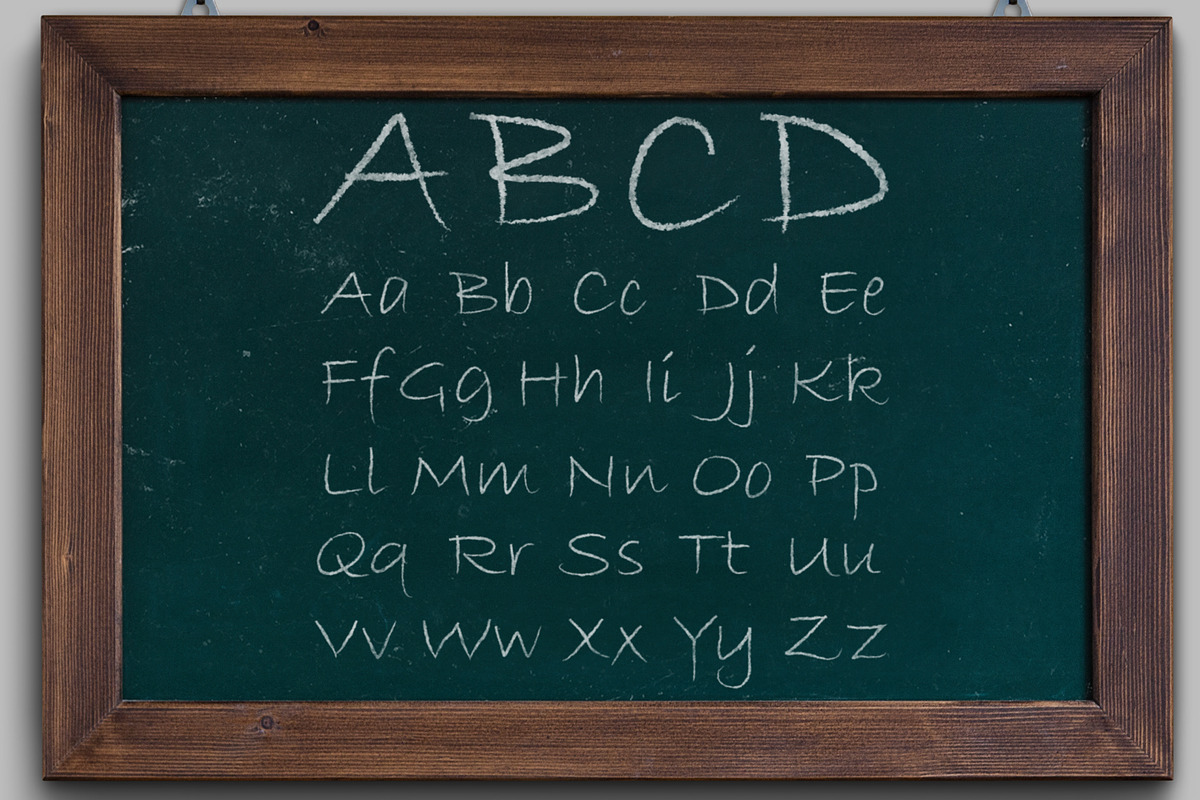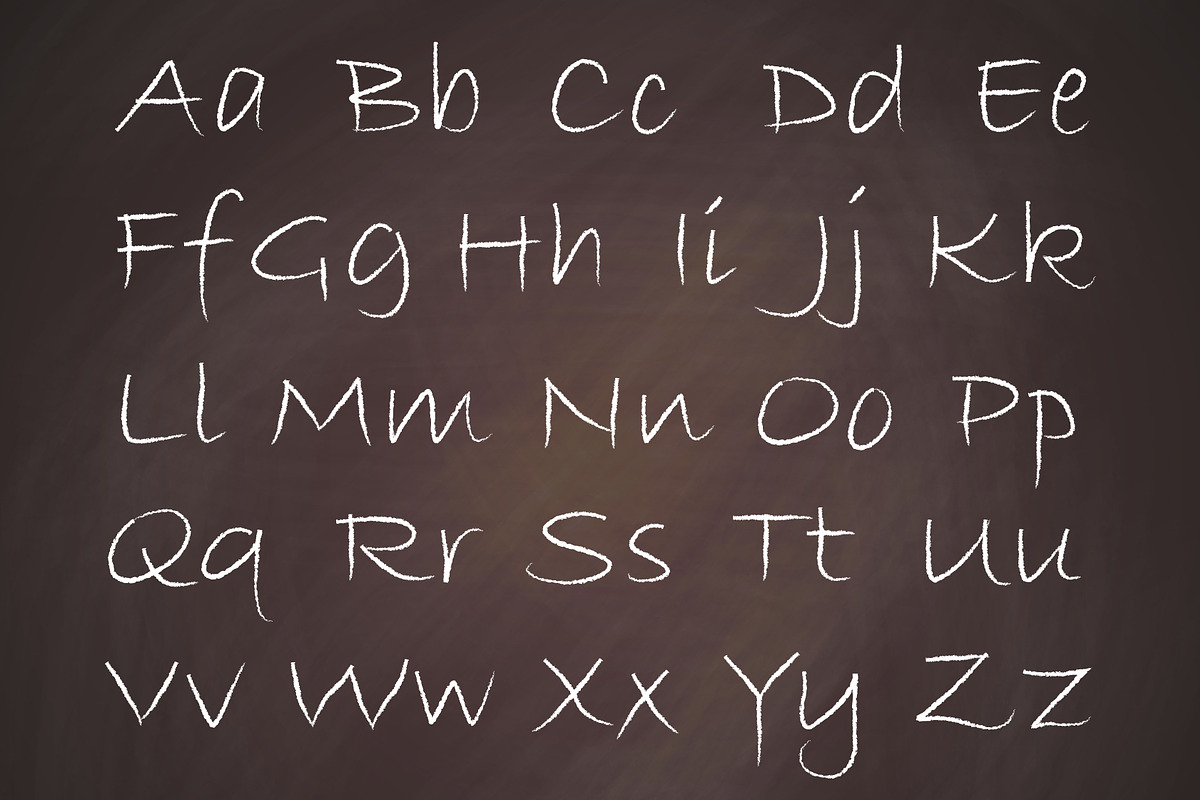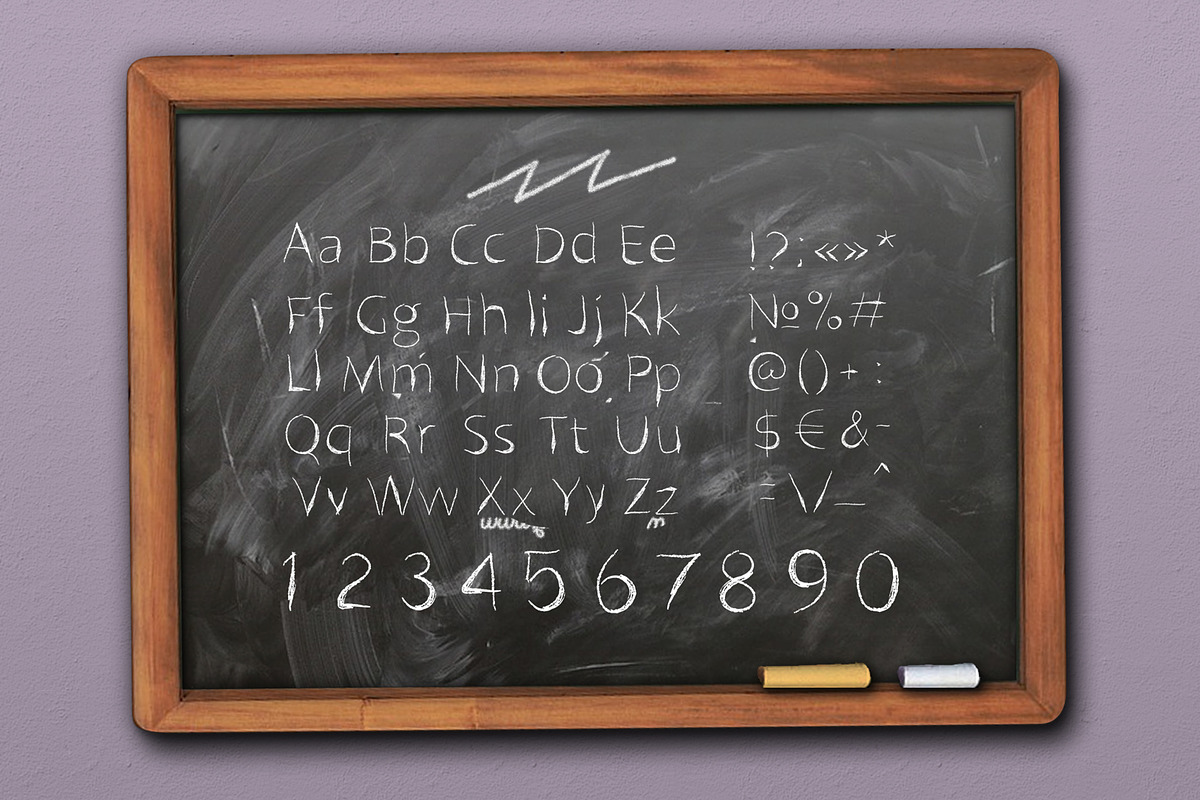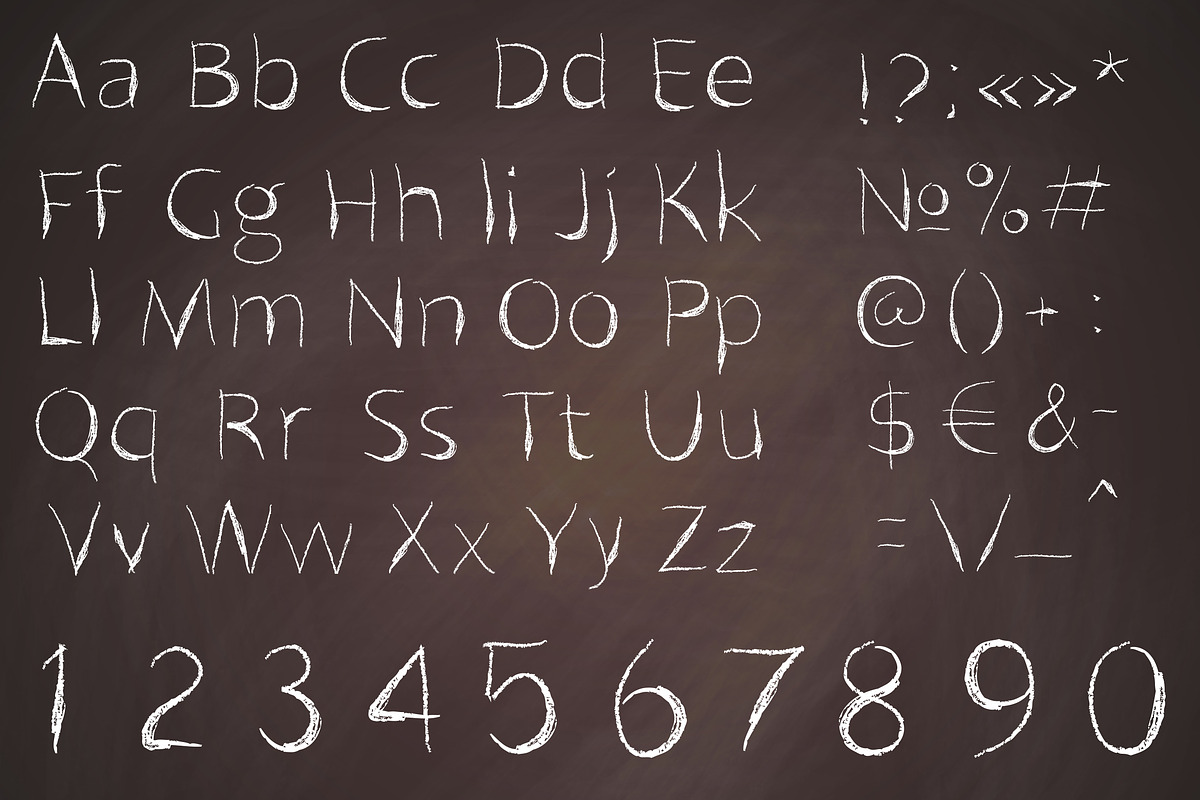
font. a piece of chalk
Font chalk on the board is great for the design of cafes, menus.
Why font. a piece of chalk is worth a look
font. a piece of chalk by Chikovnaya fits naturally into Branding, posters, packaging, typography.